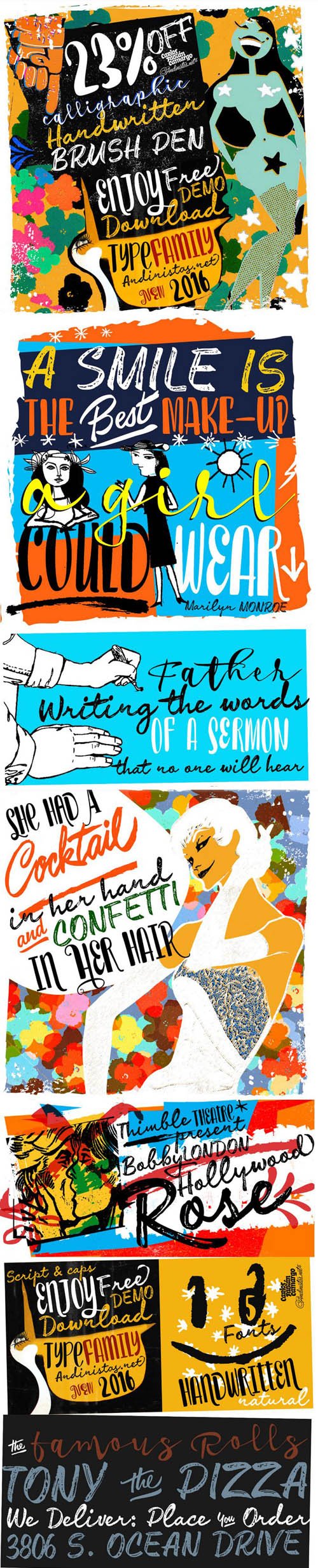
When complement illustrations or spontaneous projects requiring organic fonts, with Enjoy you will find expressive attributes reflected in uppercase, lowercase and numbers written with brush and fluid ink. Due to its maximum and coordinated cursive logic, captivates the interest in graphic design or advertising for cafeterias, sales of plants, bakeries, etc.